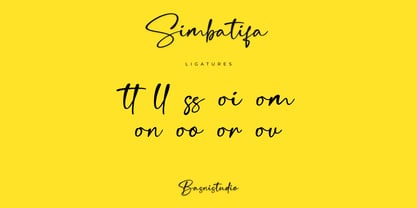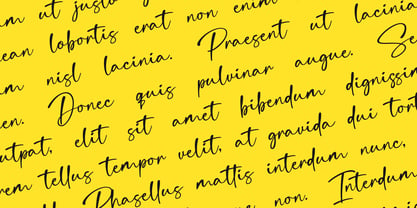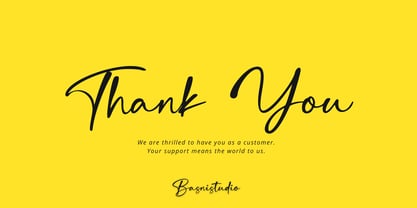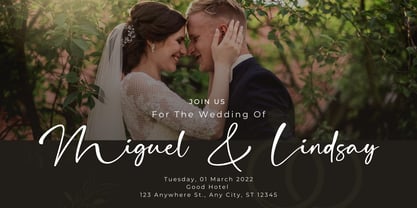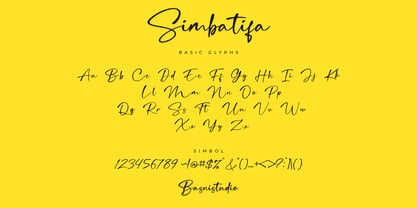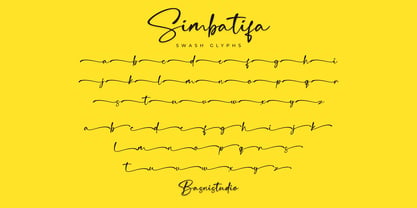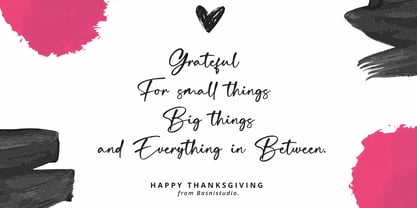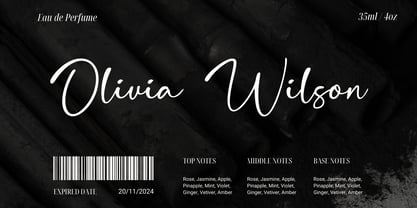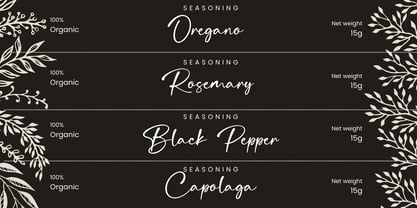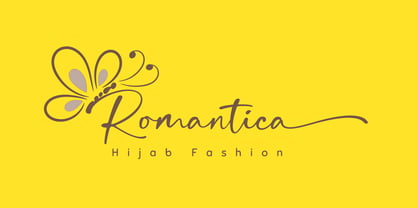
Simbatifa
Die Schriftfamilie Simbatifa wurde von Bery Arisandi entworfen und von Basnistudio veröffentlicht. Simbatifa enthält 1 Stile. Mehr über diese Familie
The Perfect Handwritten Touch for Your Designs
Introducing Simbatifa a Handwritten Font that adds a elegant, versatile touch to everything from branding and social media to invitations and packaging.
Simbatifa a Handwritten Font gives you the creative edge you need.
What’s Included:
Uppercase & lowercase letters
Ligature
Swashes
Numbers & punctuation
Multilingual Support ( Support for 90 languages )